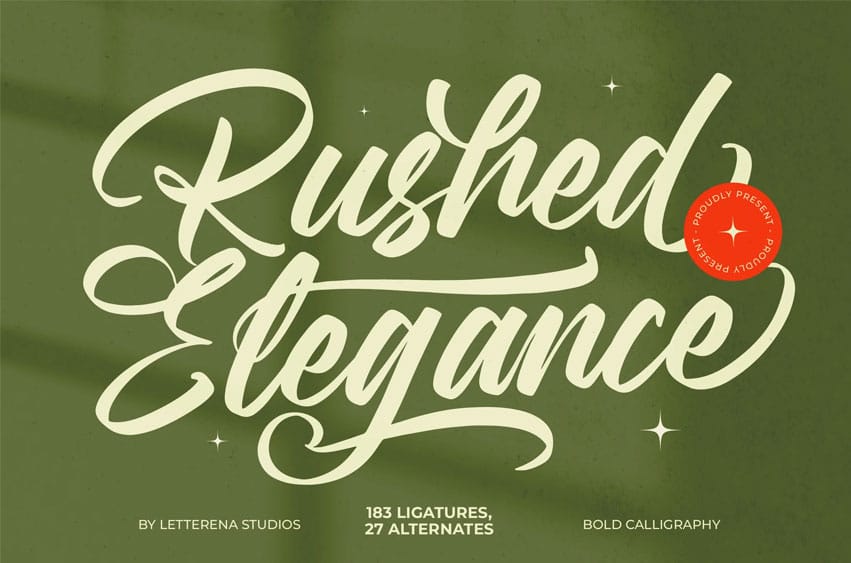
Rushed Elegance Font is suitable to complement your digital and printed creative products. This font is perfect for posters, social media posts, branding, personal projects, etc.